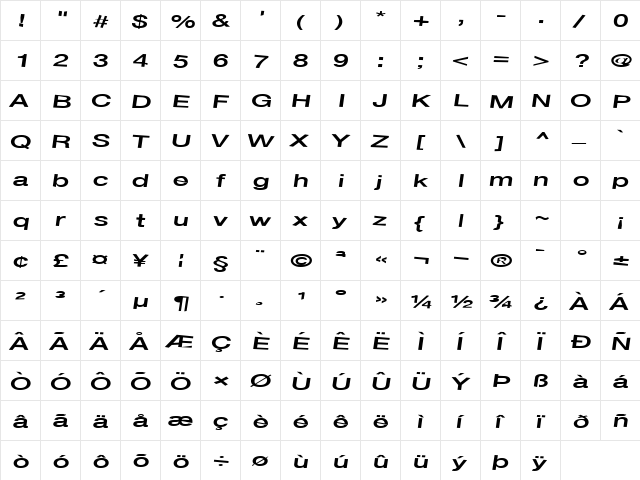
Font Regular
Design Context for Font Typeface
Font is a composed and adaptable typeface that performs quietly and consistently across a wide range of design contexts.